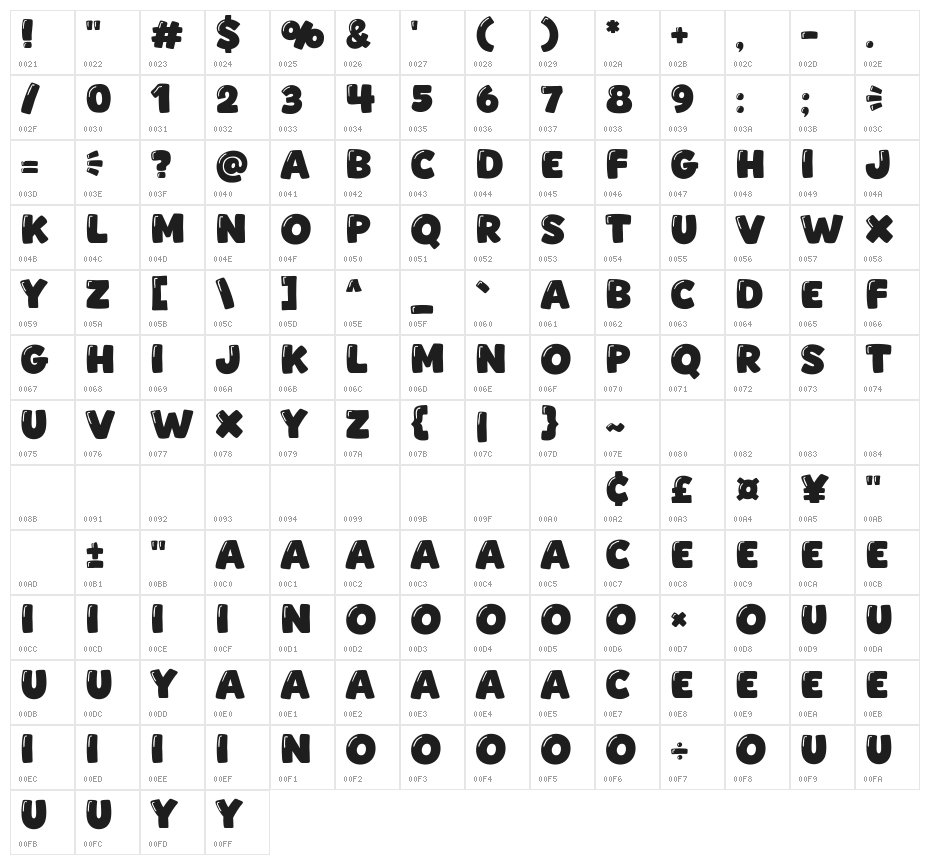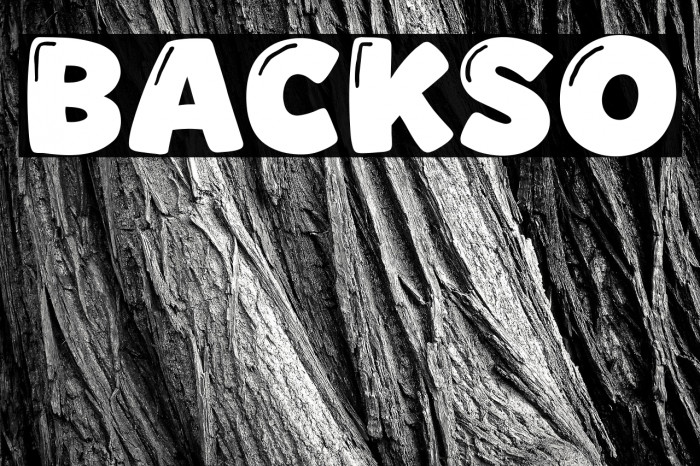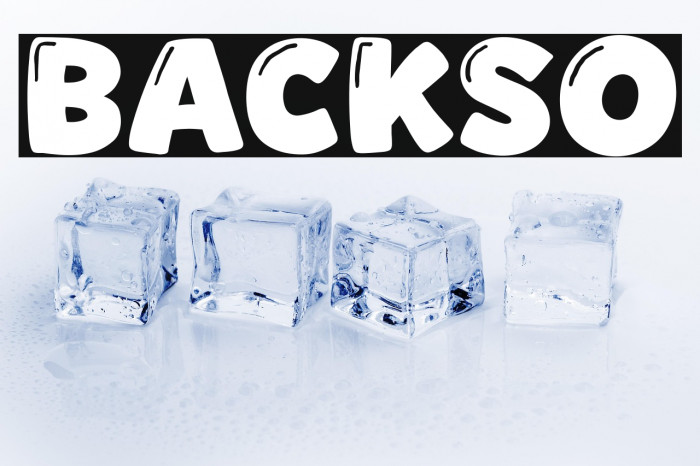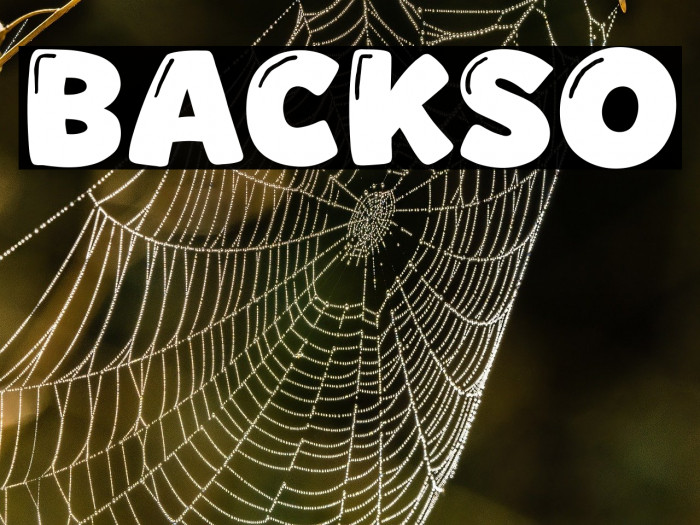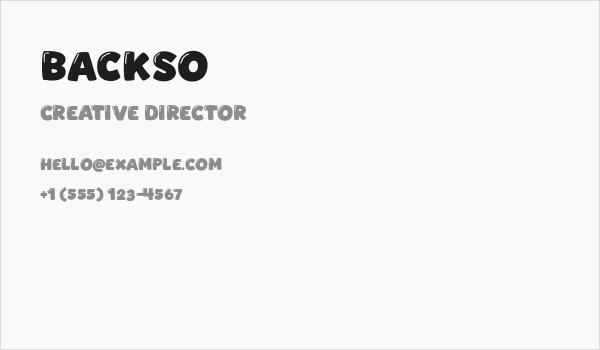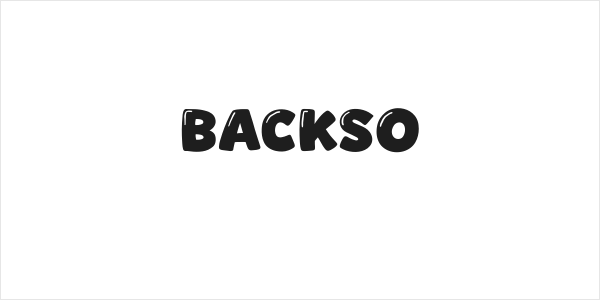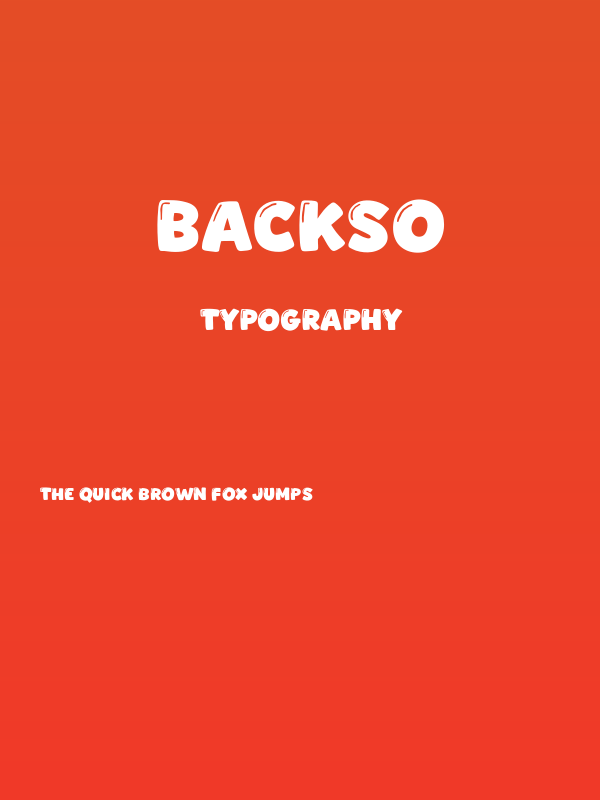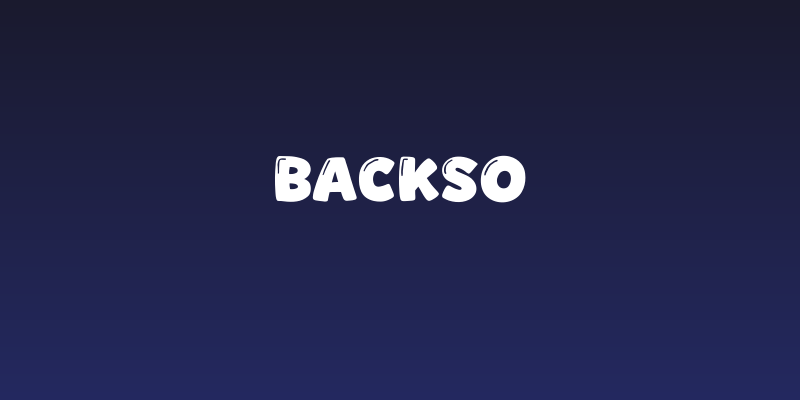
Backso Font
Backso Description
This bold and playful font features thick, rounded characters that exude a sense of fun and energy. The letters are uniformly bold with a slightly inflated appearance, giving them a cartoonish and approachable vibe. The consistent stroke weight across all characters ensures a cohesive look, while the rounded edges soften the overall appearance, making it friendly and inviting. The font is highly legible, even at smaller sizes, due to its clear and distinct letterforms. The numbers and special characters maintain the same playful style, ensuring versatility across different uses.
| Overall Style | Playful, Cartoonish |
| Proposed Projects | Ideal for children's books, comic strips, playful branding, and event posters. |